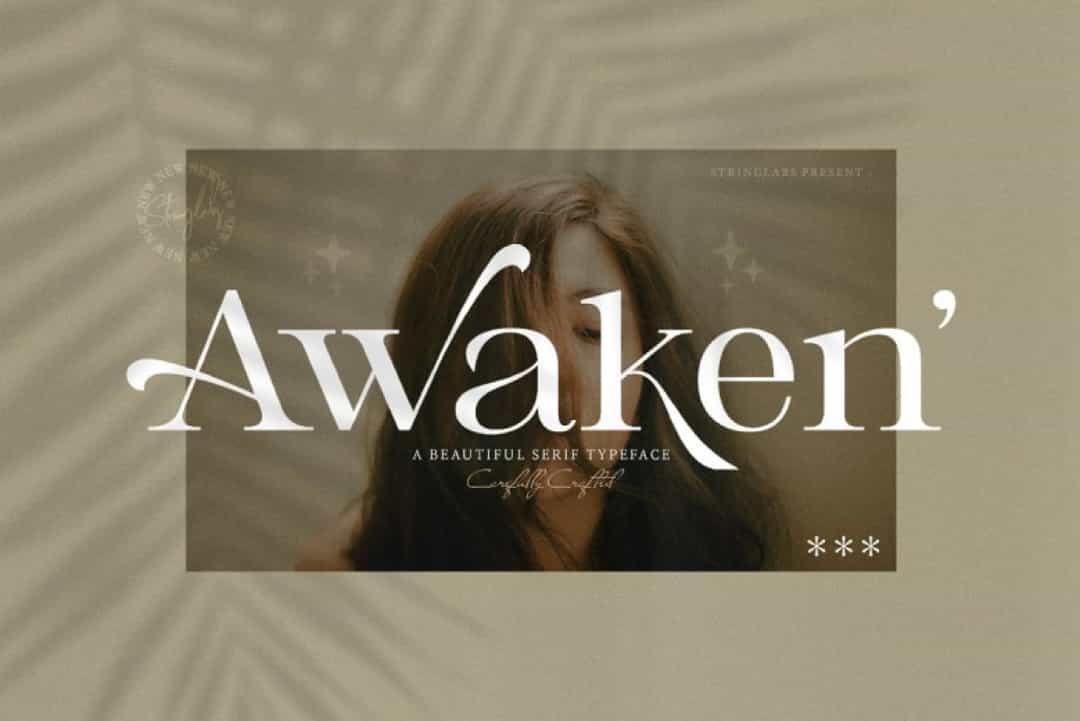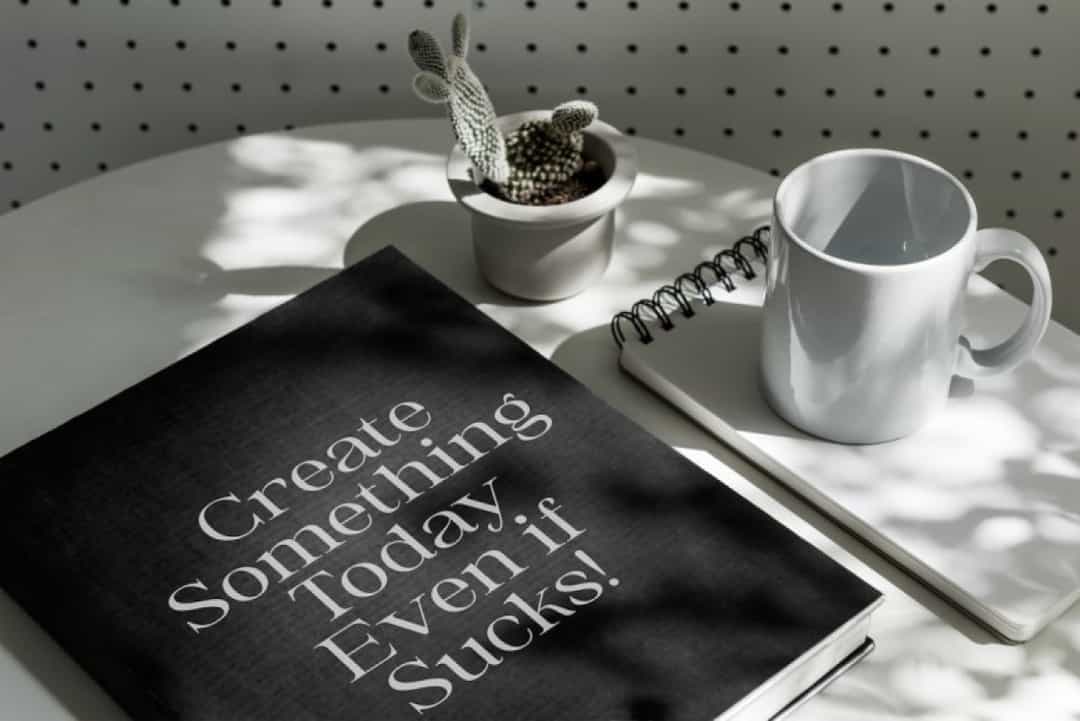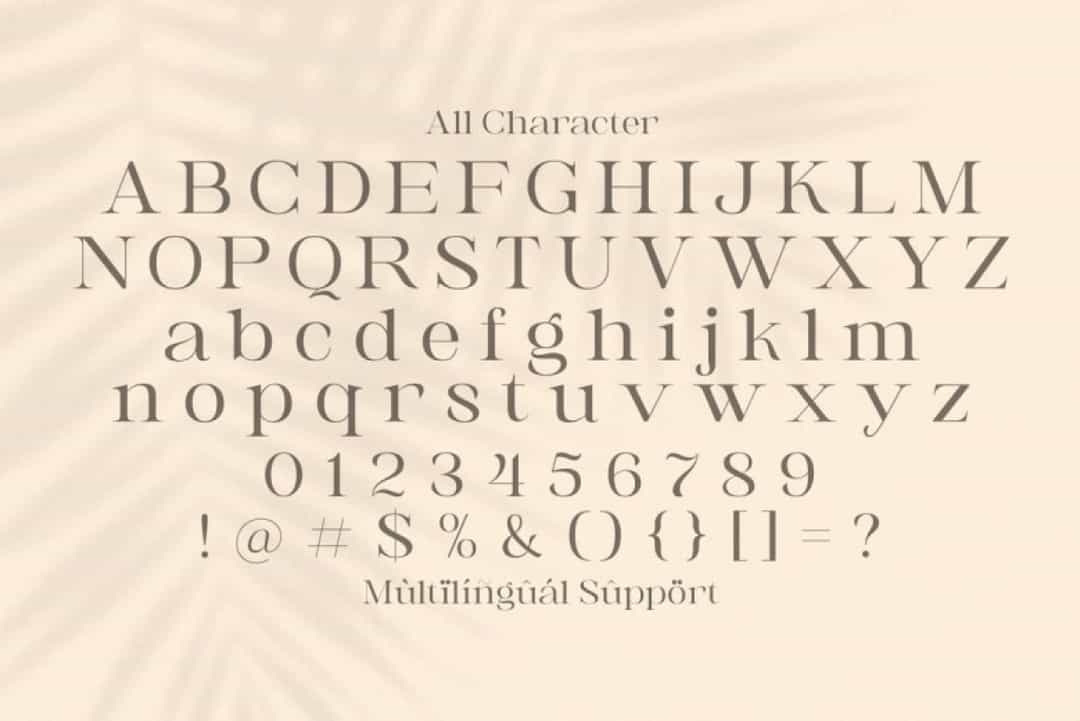
Discover Awaken Font, part of the Serif collection—a versatile and unique font perfect for adding a personal touch to your projects. Download it for free and enjoy crafting designs with style, from invitations to social media posts. This font is available exclusively for personal use, giving you the freedom to create without limits. Unlock your creativity with Awaken Font today!
Awaken is a font that can be used casually. Created by StringLabs, Awaken is an authentic yet elegant serif font designed to fit in seamlessly with all manner of projects. So add Awaken into your creative endeavors and watch how it shines!